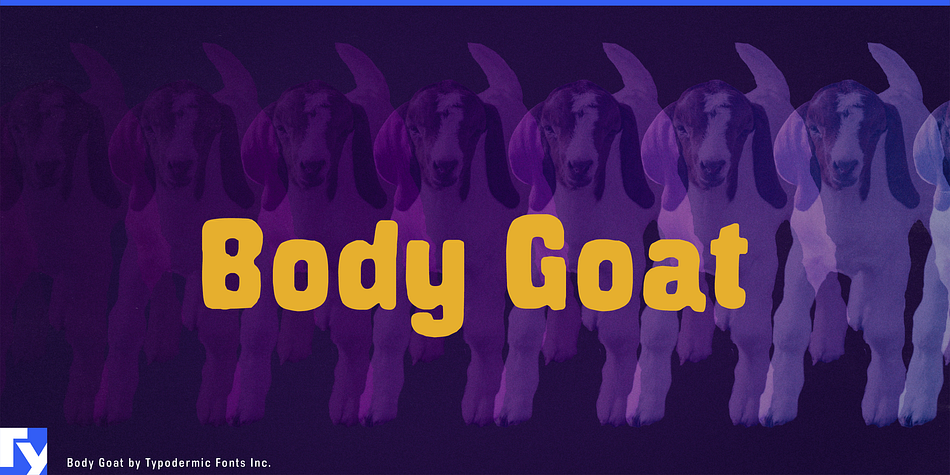
Body Goat
Body Goat is a comic and kids font published by Typodermic Fonts Inc.
Welcome to the bizarre world of typography where the surreal meets the extraordinary! Introducing Body Goat, a hand-painted display typeface that will leave you spellbound. Its compact design may seem unassuming at first, but the inky quality of its letters draws you in with a hypnotic effect.
But that’s just the beginning. When Body Goat is colored, it transforms into a fantastical creature that is both playful and powerful. Its casual appearance is deceptive, as it is perfect for creating headlines that command attention and make a bold statement.
With Body Goat, you can create a world that defies the norms of typography, where the rules are rewritten, and the possibilities are endless. Whether you’re a designer, artist, or just a curious outsider, let Body Goat take you on a journey of surreal proportions.